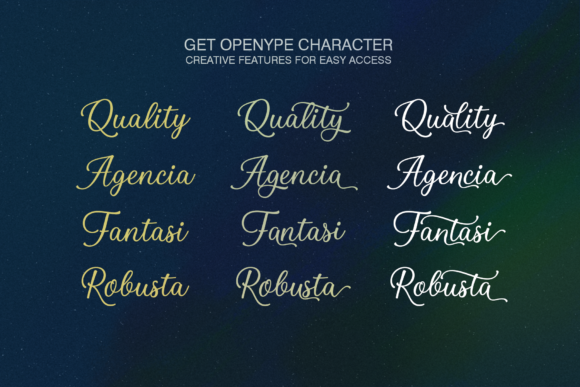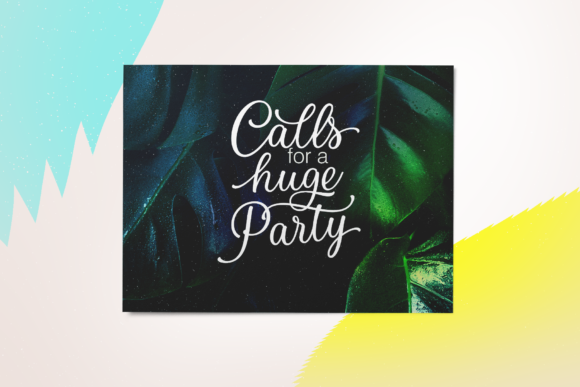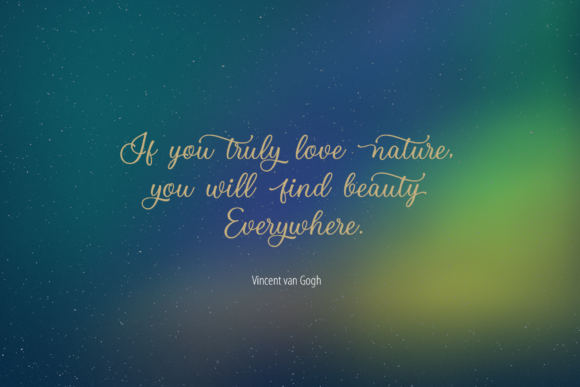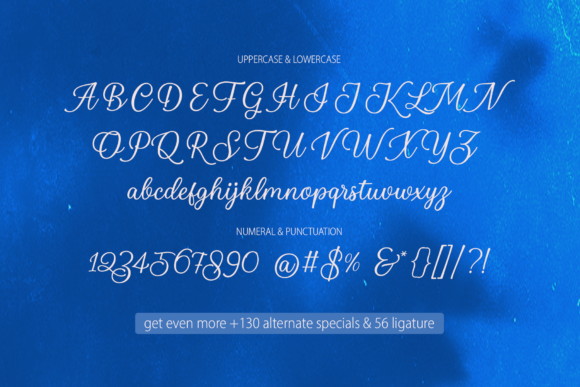
Discover the Elegant Beauty of the Balencia Font
As a designer, have you ever found yourself staring at a blank page, searching for the perfect font to capture the essence of your creative vision? For me, it’s those moments of inspiration that spark a new project, and I’m excited to share with you a font that will elevate your designs to the next level: the stylish Balencia Font.
Designed with a flowing aesthetic, the Balencia Font is perfect for titles, signatures, logos, and more. Its PUA encoded feature allows for effortless access to all the glyphs and swashes, giving you the freedom to get creative. Whether you’re working on a wedding invitation, t-shirt design, or signage, the Balencia Font is sure to add a touch of elegance and sophistication to your work. As a valuable tool for designers, this font is a must-have in your toolkit, and I’m excited to dive deeper into its features and uses in this article.
Balencia Font Key Features
- Unique Characteristics: Elegant, modern design with a touch of classic sophistication; ideal for branding, logos, and high-end typography
Designer Review: Balencia Font
I’ve had the chance to work with Balencia Font, and here’s my honest take on it.
✨ Balencia Font has a unique blend of elegance and modernity, making it perfect for creating a sophisticated and professional look. The font is highly legible, even at smaller sizes, which is a must for any design project.
⚠️ One of the major limitations of Balencia Font is its limited character set. It doesn’t support many languages, which can be a problem for designers working on international projects. Additionally, the font lacks bold and italic styles, which can make it less versatile for certain design tasks.
Overall, Balencia Font is a solid choice for designers looking for a clean and modern font. While it has its limitations, its unique style and high legibility make it a great addition to any design project. Just be aware of its limitations and plan accordingly.
- Unique blend of elegance and modernity
- High legibility, even at smaller sizes
- Limited character set (does not support many languages)
- Lacks bold and italic styles
- Use Balencia Font for headings and titles to add a touch of elegance and sophistication.
Alternatives to Balencia Font
The Balencia Font is a beautiful, elegant script font. However, there are many other options available for designers who want to achieve a similar look.
Great Vibes is a beautiful, modern script font that is perfect for creating a luxurious and elegant look. It is highly customizable and comes in a range of weights and styles. Great Vibes is ideal for use in branding, advertising, and packaging design. It is a more modern and trendy alternative to Balencia Font, with a slightly more geometric feel.
Carolyna Pro is a sophisticated, elegant script font that is perfect for creating a high-end and luxurious look. It is highly customizable and comes in a range of weights and styles. Carolyna Pro is ideal for use in branding, advertising, and packaging design. It is a more refined and polished alternative to Balencia Font, with a slightly more classic feel.
Alex Brush is a beautiful, elegant script font that is perfect for creating a romantic and whimsical look. It is highly customizable and comes in a range of weights and styles. Alex Brush is ideal for use in branding, advertising, and packaging design. It is a more delicate and feminine alternative to Balencia Font, with a slightly more hand-drawn feel.
Dancing Script is a fun, energetic script font that is perfect for creating a playful and youthful look. It is highly customizable and comes in a range of weights and styles. Dancing Script is ideal for use in branding, advertising, and packaging design. It is a more casual and relaxed alternative to Balencia Font, with a slightly more playful feel.
Yes, the Balencia Font is designed to be highly legible at small font sizes. Its clear and open design ensures that text remains readable even at very small sizes, making it an excellent choice for digital applications like mobile devices and websites.